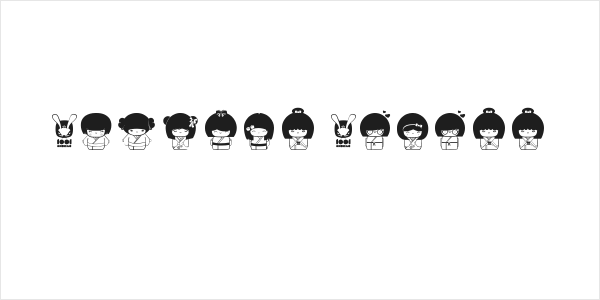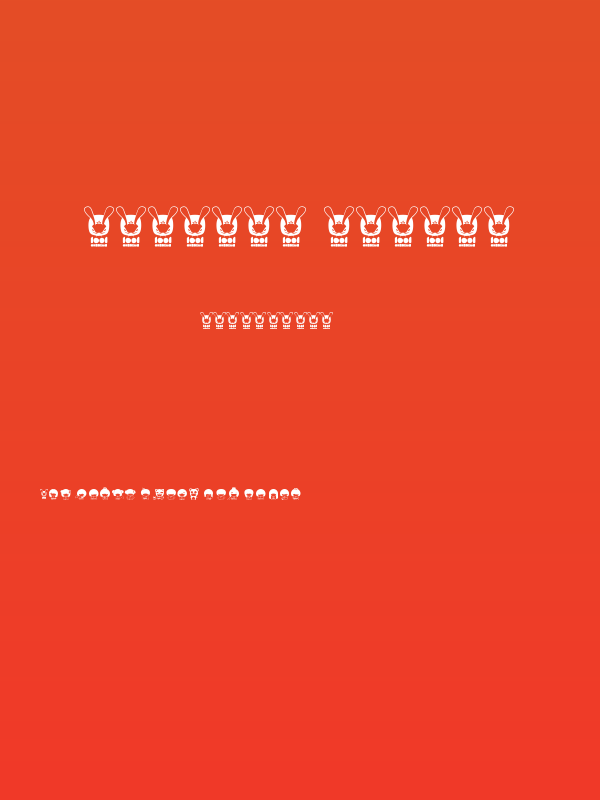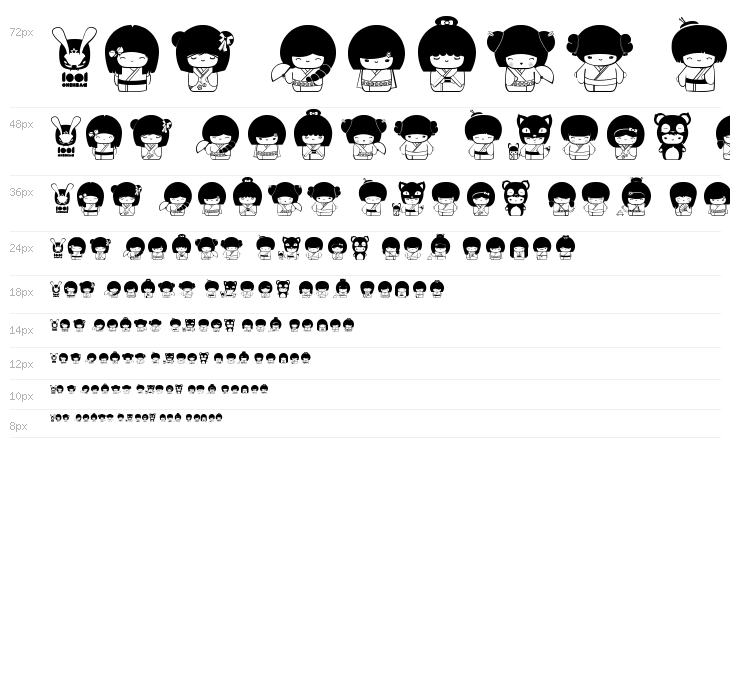
Kokeshi Kawaii Font
Kokeshi Kawaii Description
A playful and decorative font featuring kawaii-style kokeshi doll illustrations as characters, each letter and symbol represented by a unique, cute cartoon figure with bold outlines and minimal detailing.
| Overall Style | Decorative, Kawaii, Playful |
| Use Case | Logos, Headlines, Posters, Themed Graphics |
| Proposed Projects | ChildrenΓ’β¬β’s books, greeting cards, playful branding, party invitations, stickers, and themed posters. |